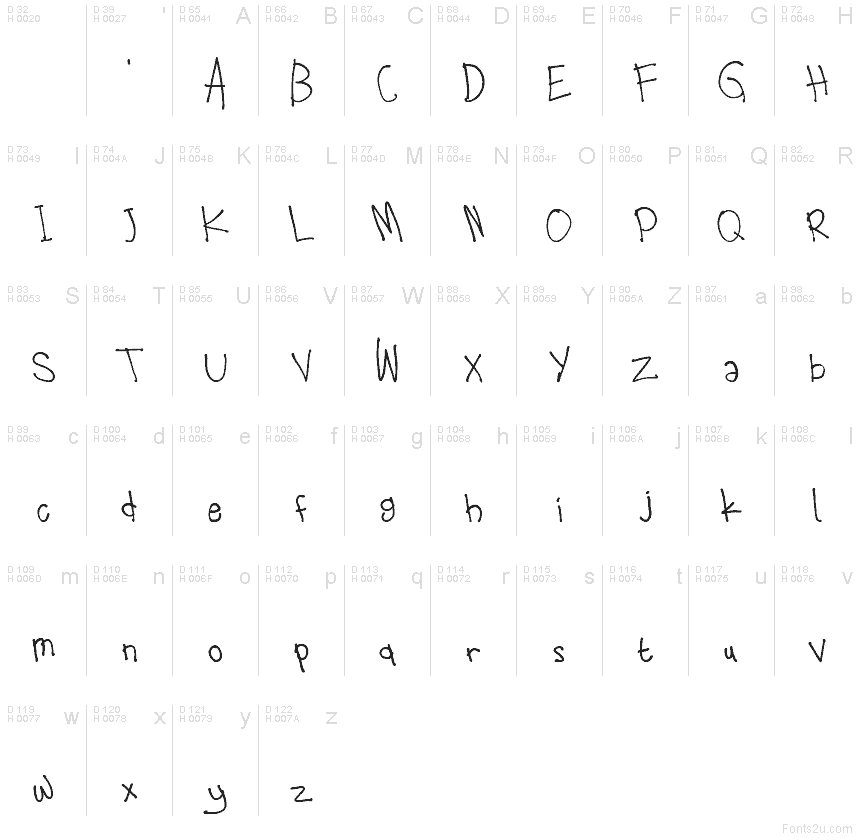
Can't Write
Can't Write font by Forberas Club is a free handwritten typeface. When you need notes that feel genuinely human—wonky, inky, a little wobbly—but still read fast, this solves it. The letters have a friendly bounce and soft, rounded edges, like a quick marker scrawl on a whiteboard, giving layouts warmth without turning messy.
Using Can't Write, headings pop with casual charm and short blocks stay airy and approachable. It shines on kids’ branding, classroom printables, crafty packaging, social captions, mood boards, and playful UI labels. Keep it roomy—slightly larger sizes let the lively rhythm breathe. Pair once with a clean geometric sans to anchor the energy of this free font.